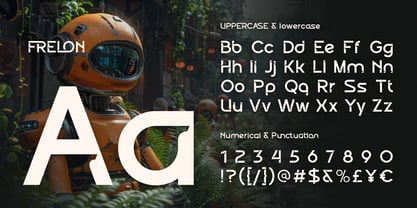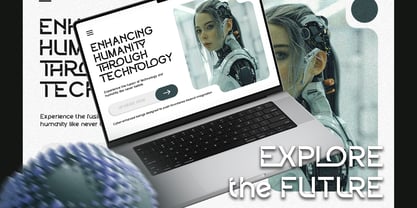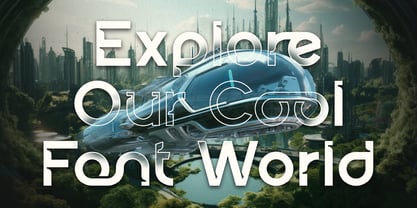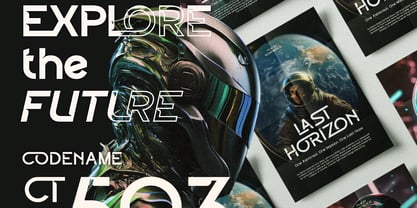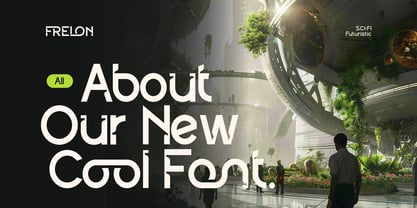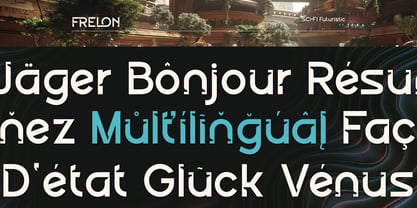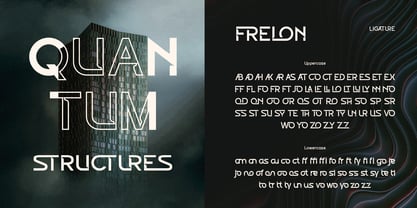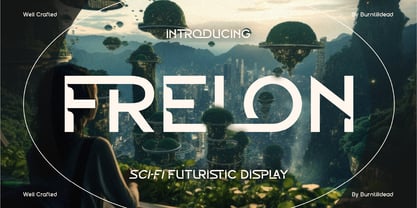
Frelon
The Frelon Font Family was designed by Eric Kurniawan and published by Burntilldead. Frelon contains 2 styles and family package options.
Introducing Frelon - a futuristic font with a modern touch. Frelon is a unique and dynamic typeface designed for those who love bold and futuristic styles. It comes in two styles: Regular and Oblique. The Regular style delivers a strong and solid look, while the Oblique version adds an energetic and fast-paced feel. Perfect for branding, technology, gaming, sci-fi, and cyberpunk themes, Frelon brings a sleek and modern edge to your designs. Whether you're creating a futuristic logo, UI design, or eye-catching visuals, this font is ready to elevate your project!
Features:
• A - Z set (Uppercase & Lowercase)
• Number
• Punctuation
• Ligatures
• Multilingual
Frelon